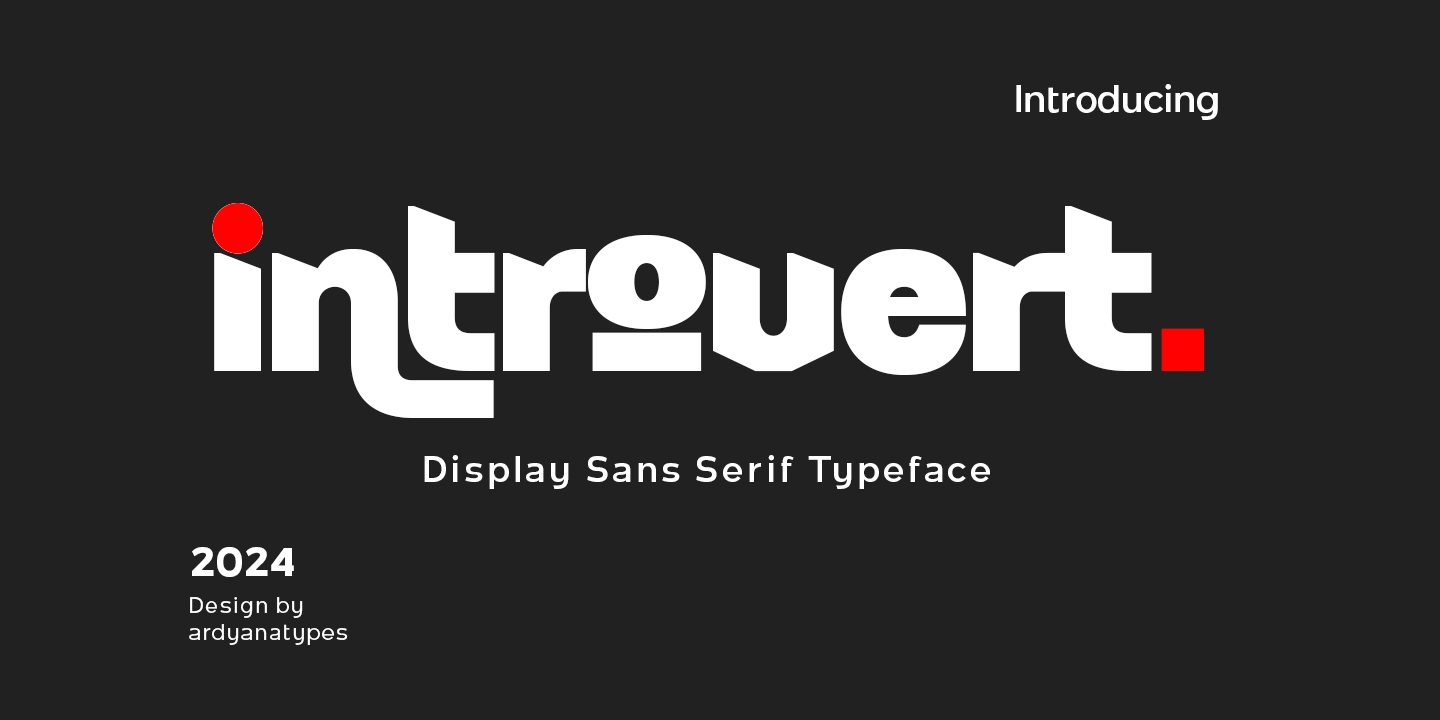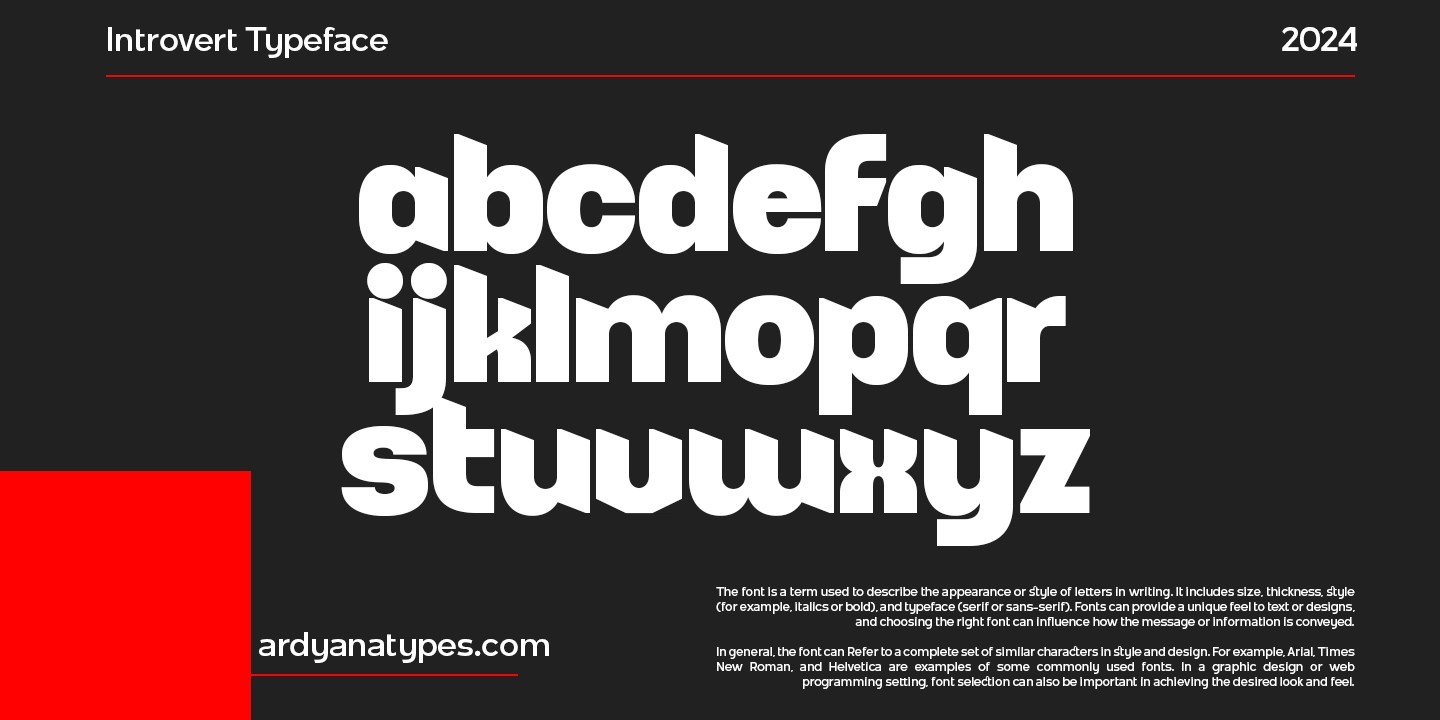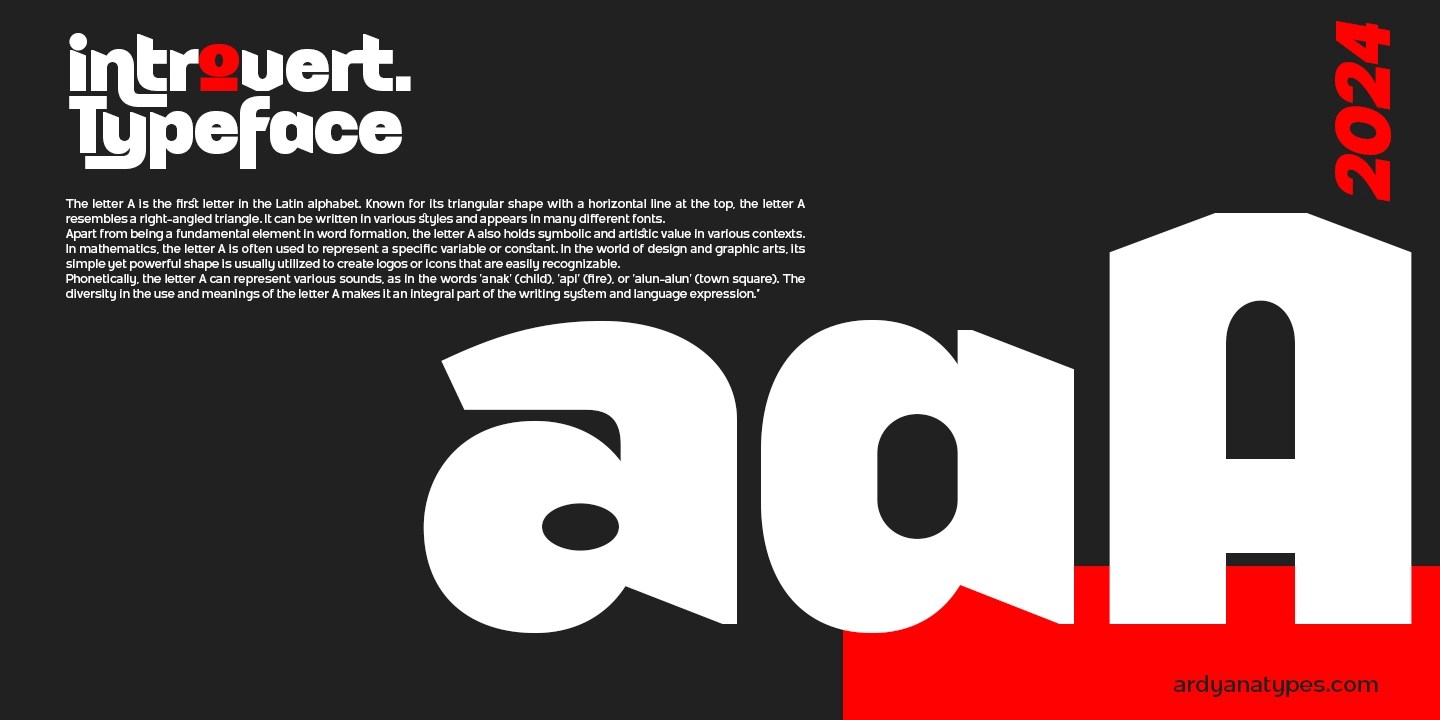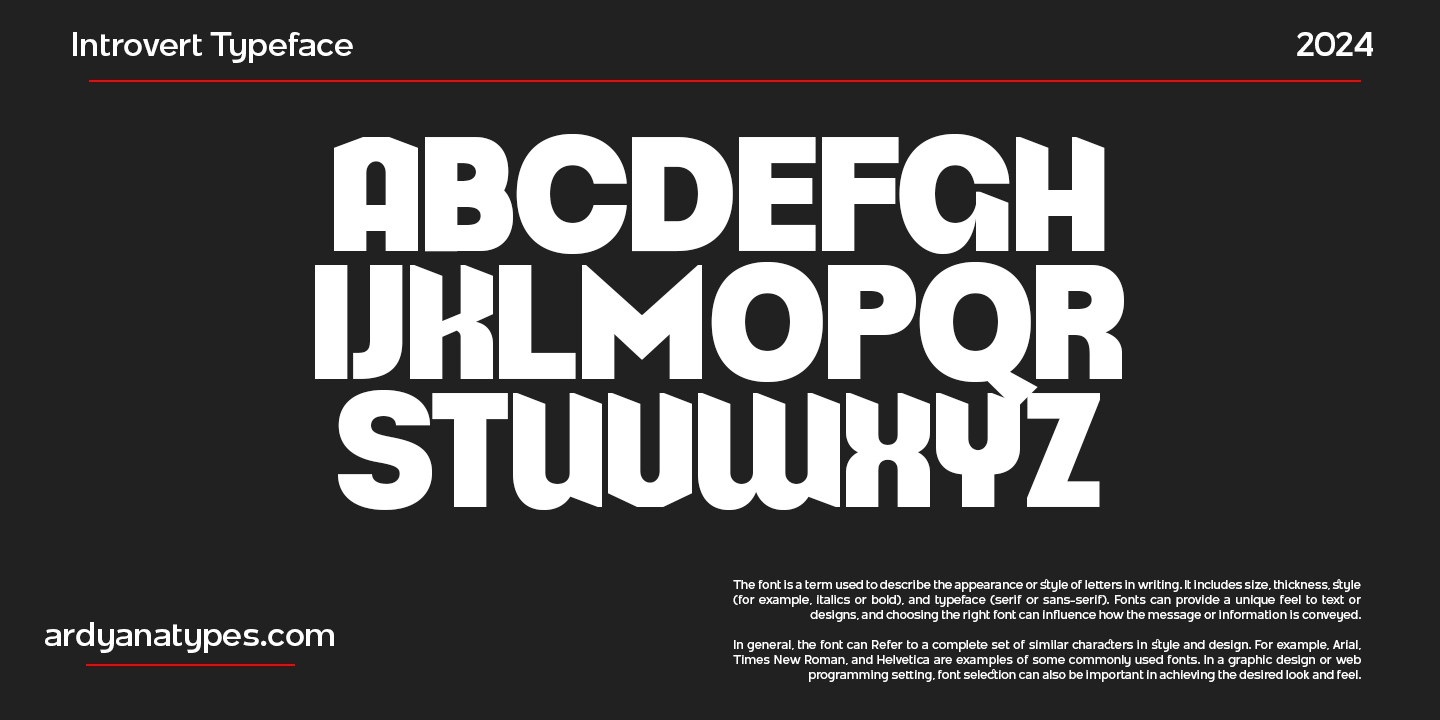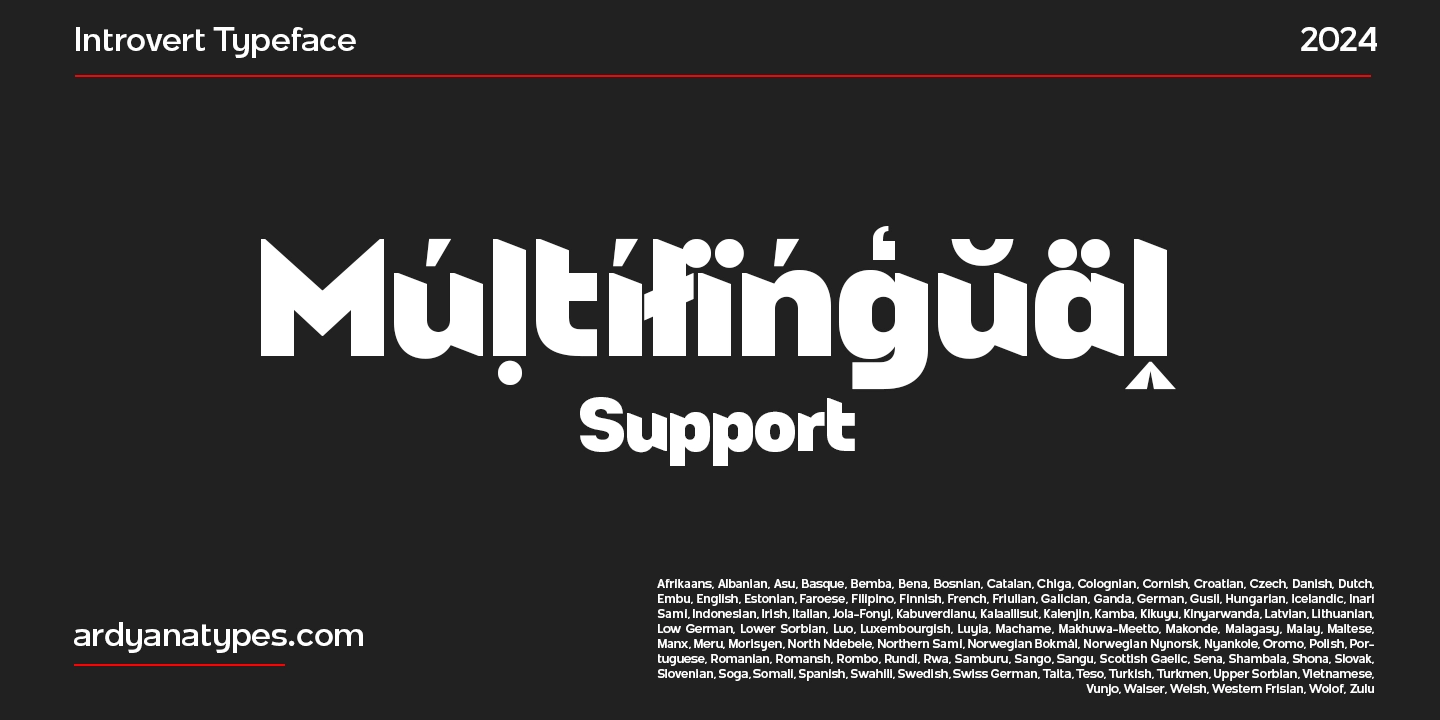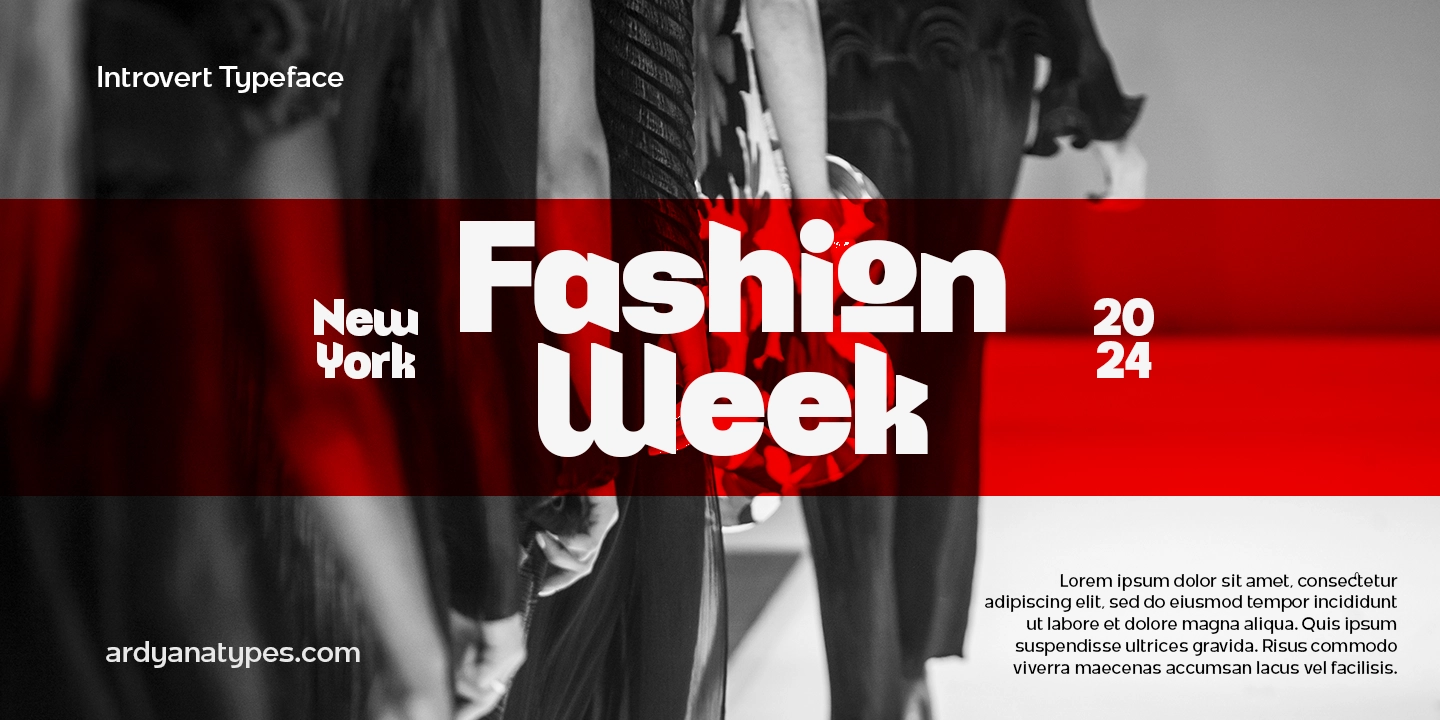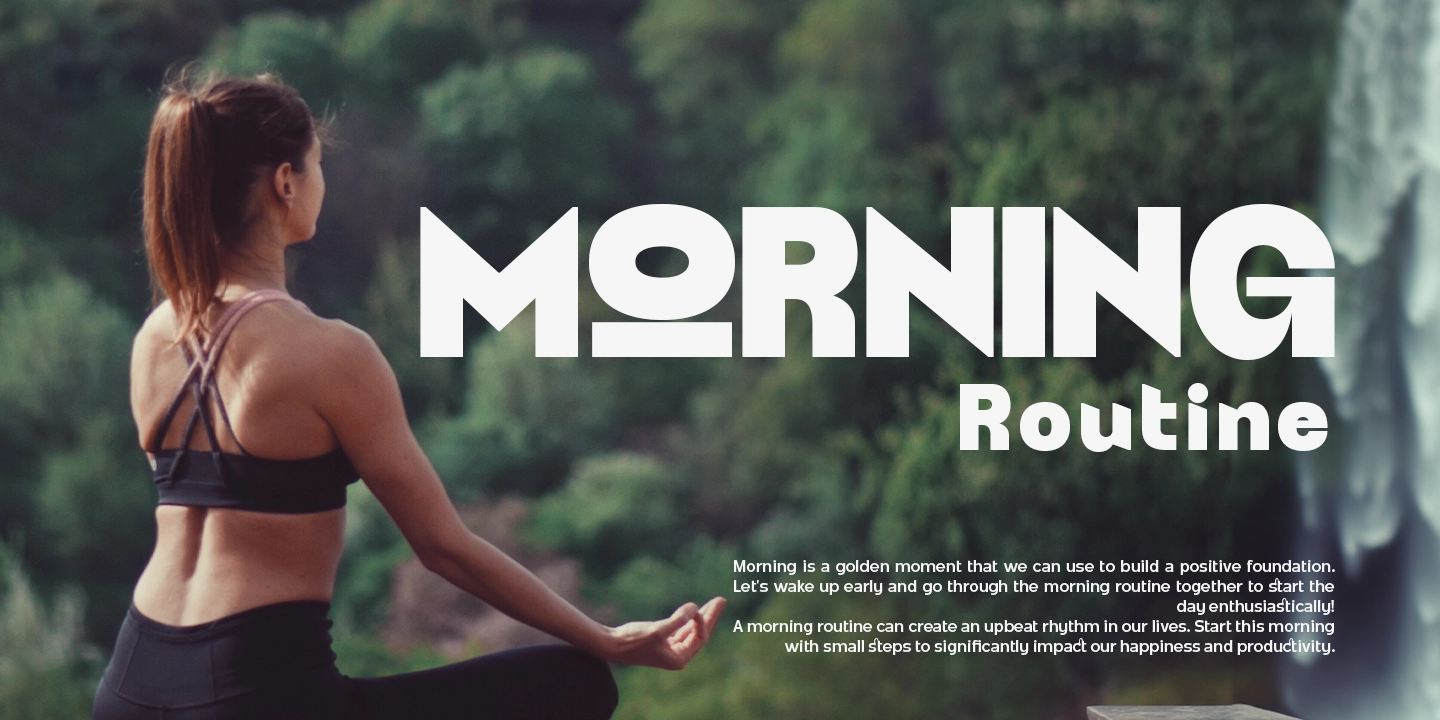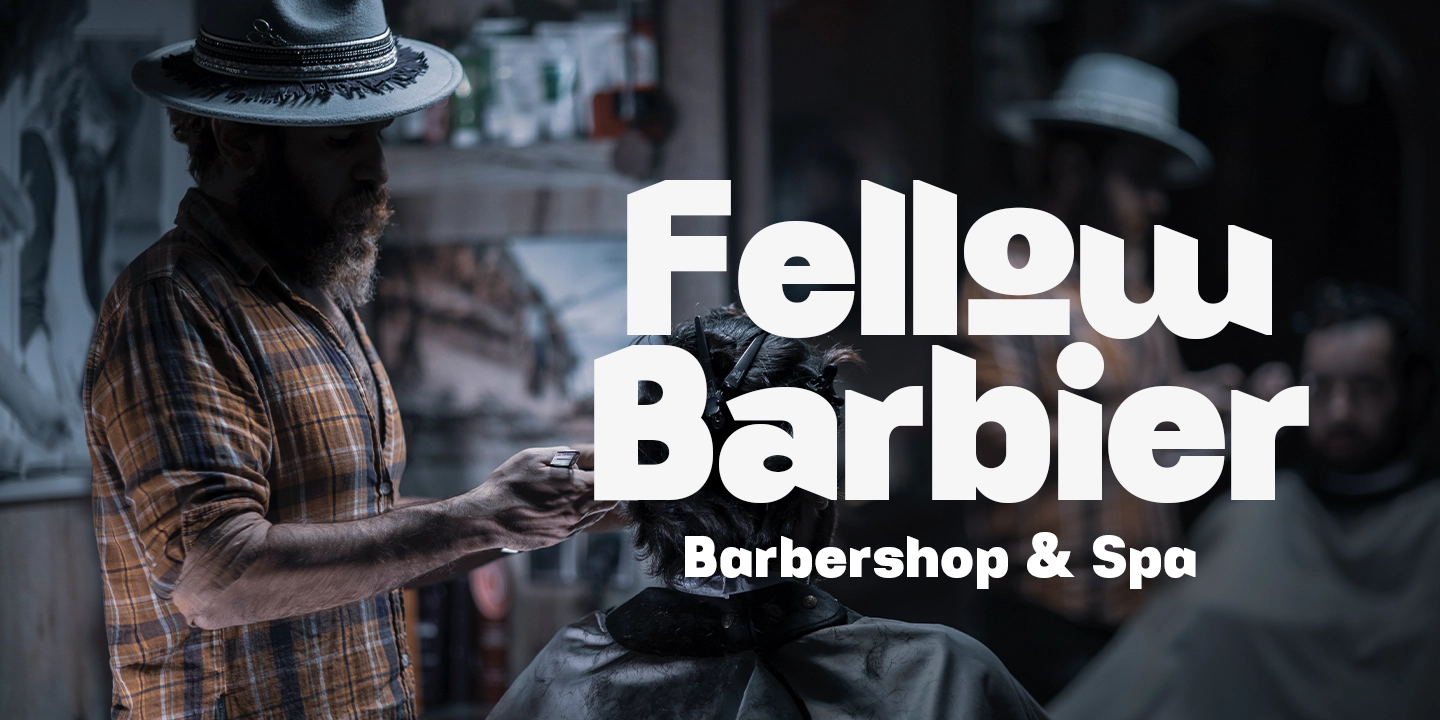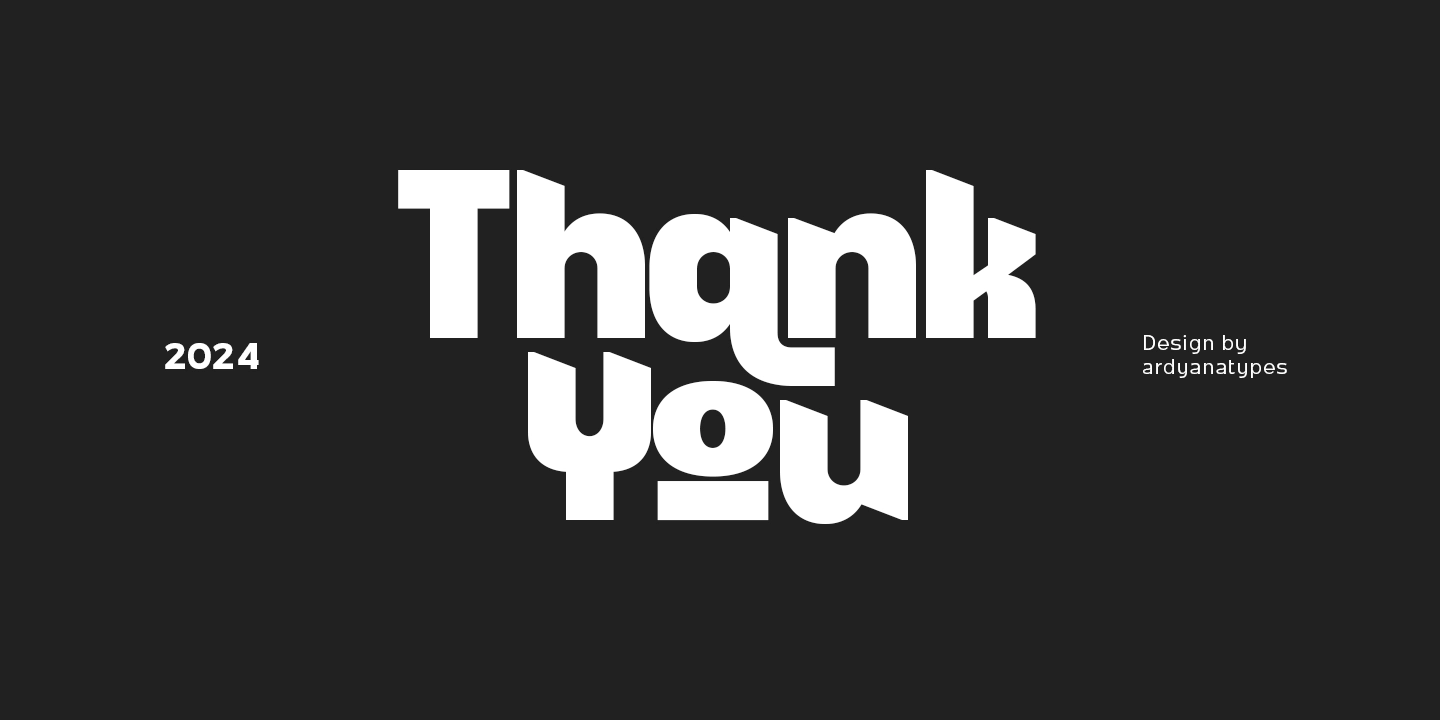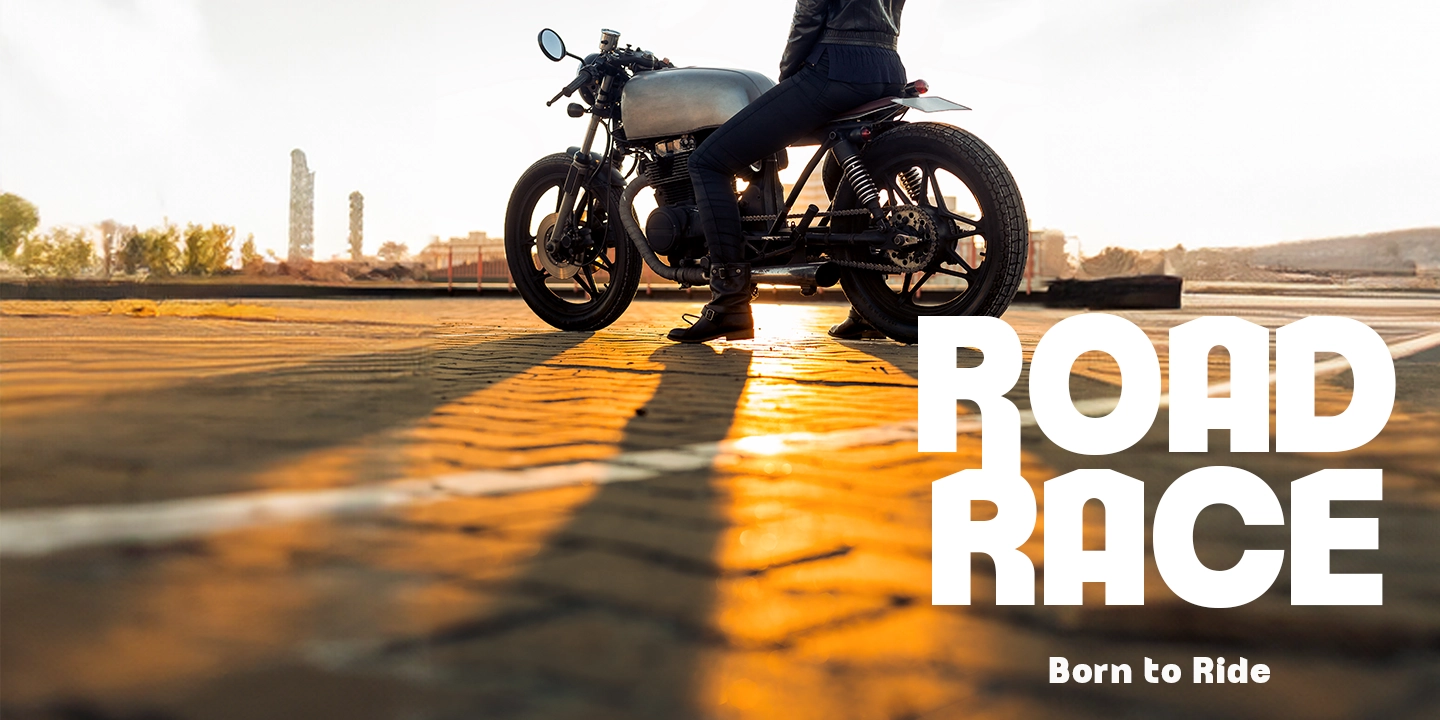
Introvert
It introduces Introvert, the font that speaks volumes with its simplicity yet exudes unparalleled assertiveness. As a sans-serif typeface, Introvert is meticulously crafted with a unique form, offering extraordinary versatility for every design it graces. Its clean lines and sharp edges give it a commanding presence, making it perfect for projects that demand attention.
But Introvert isn't just about looks—it's also packed with OpenType features that unlock a world of possibilities. From ligatures to alternate glyphs, this font provides endless opportunities to customize and elevate your designs to new heights.
Designed to accommodate many languages, Introvert seamlessly integrates into any environment, making it a universal choice for designers worldwide. Whether branding a product, designing book covers, crafting posters, or creating captivating titles for films and cartoons, Introvert is your go-to solution for infusing modernity and dynamism into your projects.
Embrace the power of Introvert and let your designs speak volumes with their bold simplicity and unparalleled versatility.